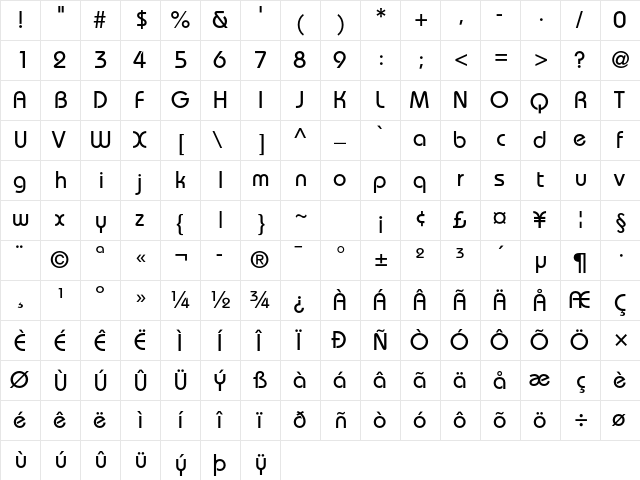
Bauhaus Std Medium
| Designer | Ed Benguiat, Vic Caruso |
Design Context for Bauhaus Std Typeface
Bauhaus Std offers clean, dependable letterforms without strong stylistic allegiance, making it a practical choice for designers who need flexibility.